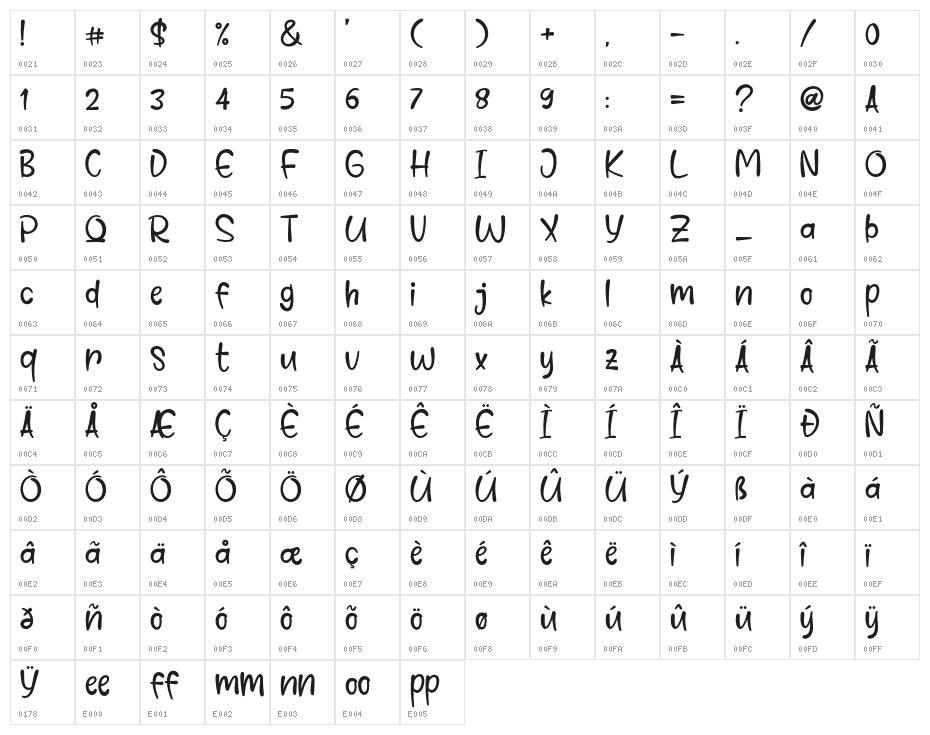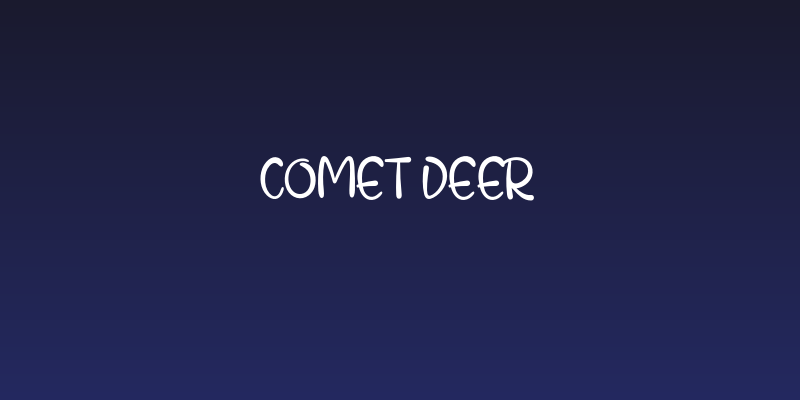
Comet Deer Font
Comet Deer Description
This playful and energetic font features a handwritten style with a bold and expressive character. The letters are slightly irregular, adding a whimsical touch to the overall appearance. The strokes are thick and rounded, giving it a friendly and approachable feel. The uppercase and lowercase letters maintain a consistent style, with a slight slant that adds to the dynamic nature of the font. The numbers and special characters are equally bold and maintain the same playful aesthetic, making this font versatile for various creative projects.
Overall StylePlayful
Proposed ProjectsIdeal for children's books, playful branding, greeting cards, and creative posters.